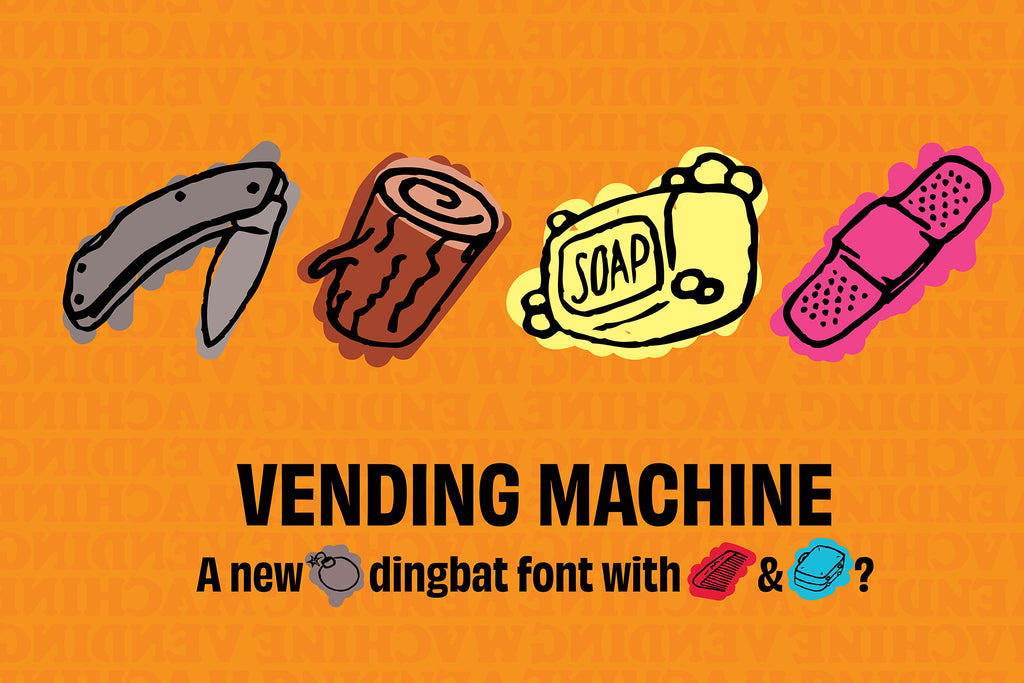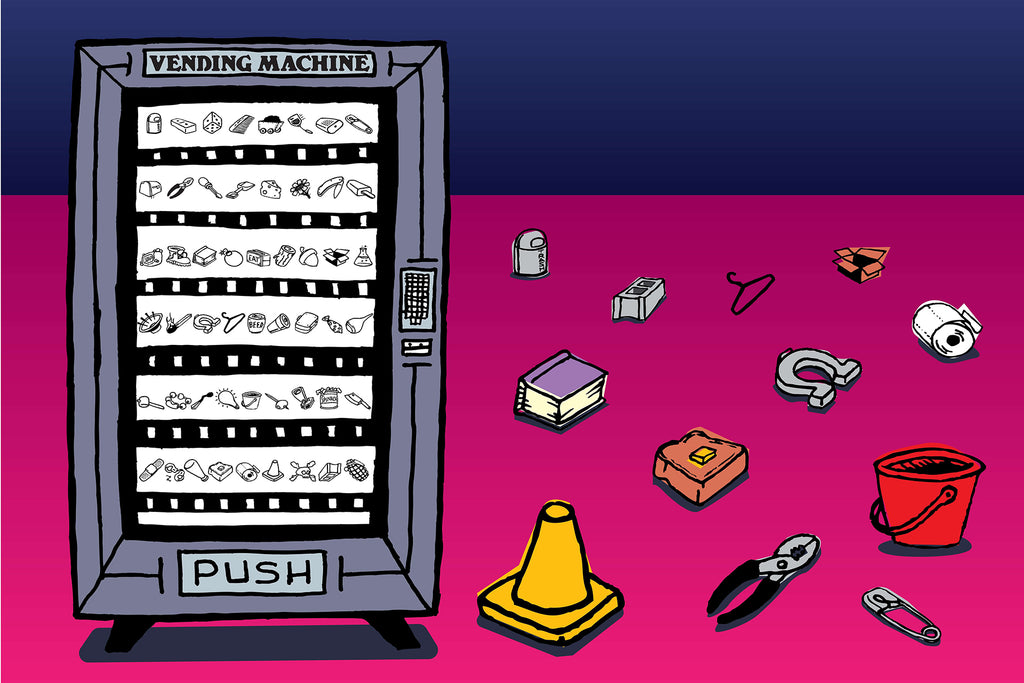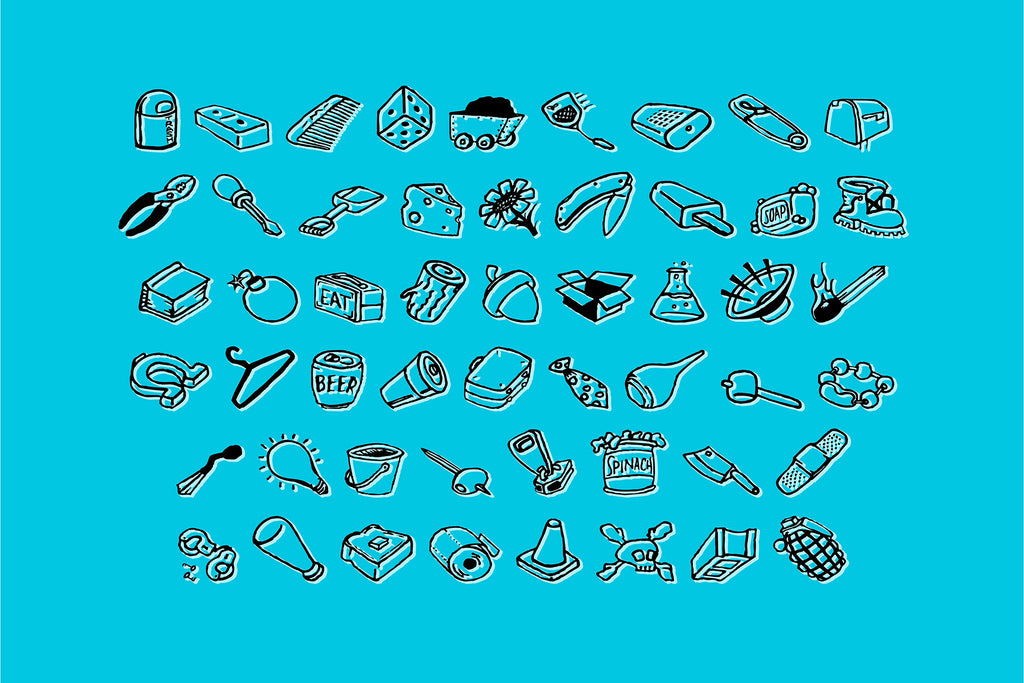
Vending Machine Dingbat Font
Vending Machine is a hand-drawn dingbat font featuring 52 pictograms—a typable collection of everyday objects, symbols, and visual odds and ends. True to its name, it’s a grab bag of imagery that includes everything but the kitchen sink.
Created circa 1999 while studying at West Texas A&M University, Vending Machine was designed from the outset as an illustration-based typeface, using fonts as a delivery system for images rather than language. Each glyph functions as a standalone visual element, ready to be dropped directly into layouts.
The drawings are loose, analog, and intentionally imperfect, giving the font a human, sketch-driven quality. Vending Machine works especially well for posters, zines, merch, editorial accents, and experimental typography where variety and personality matter more than uniformity.